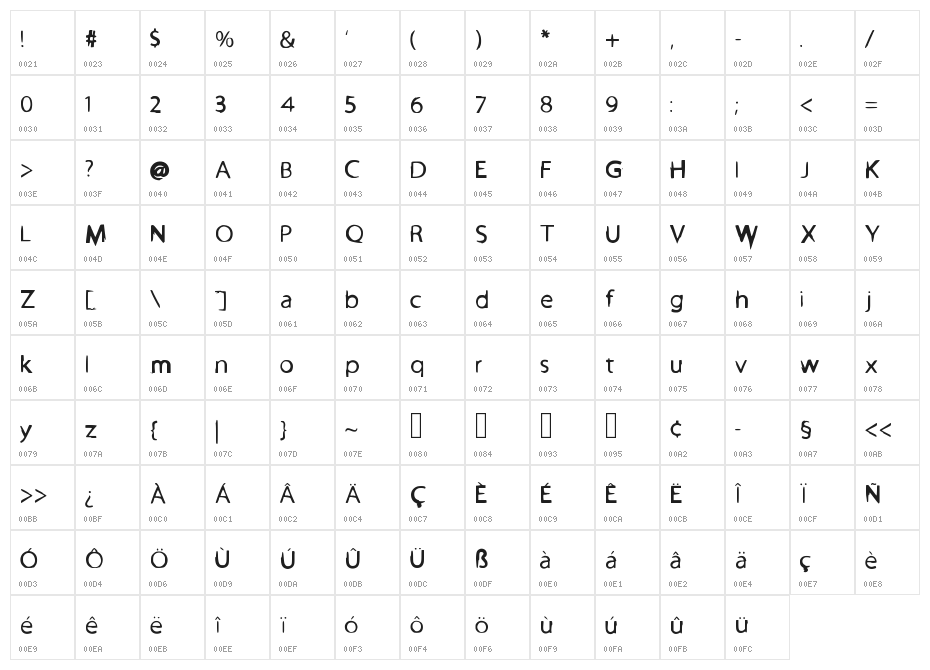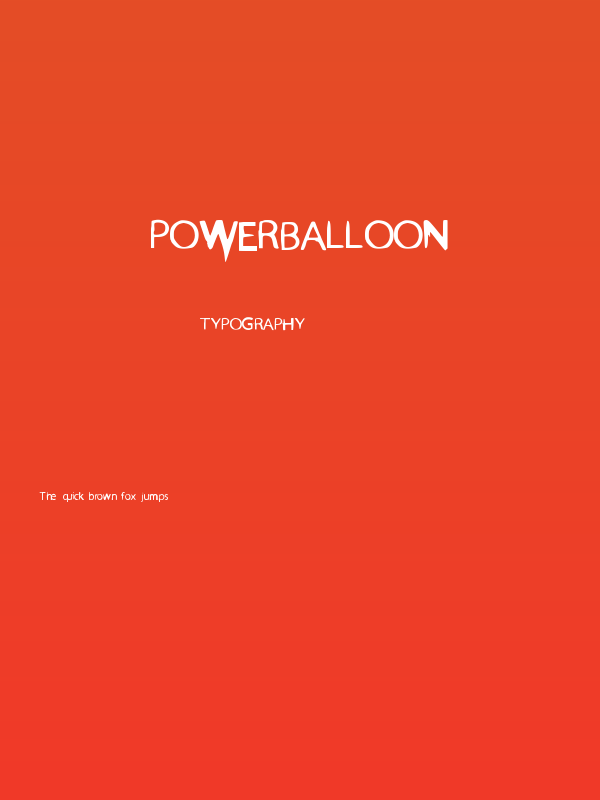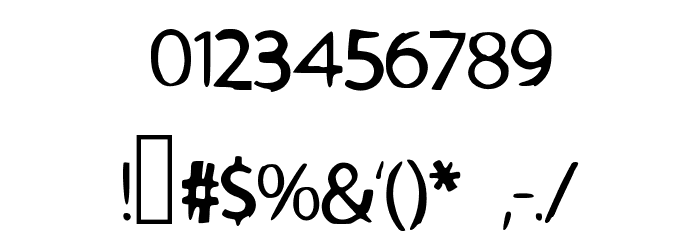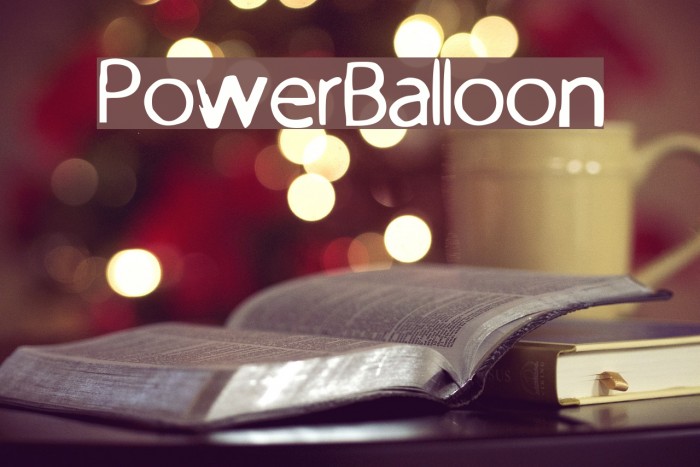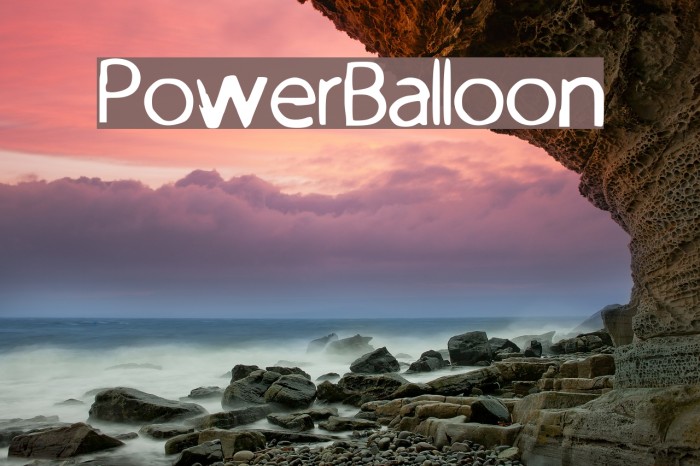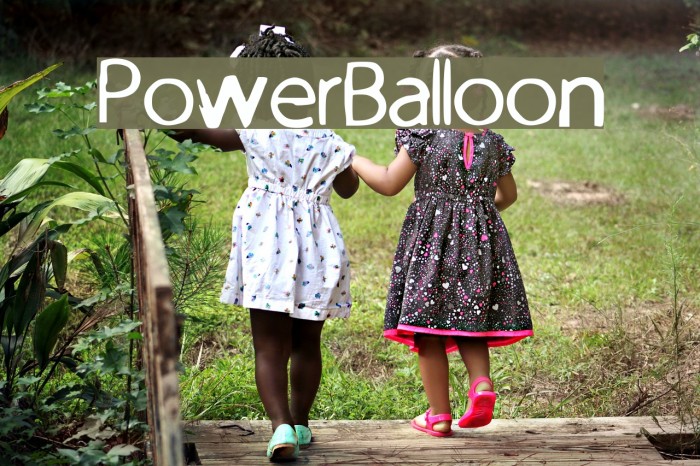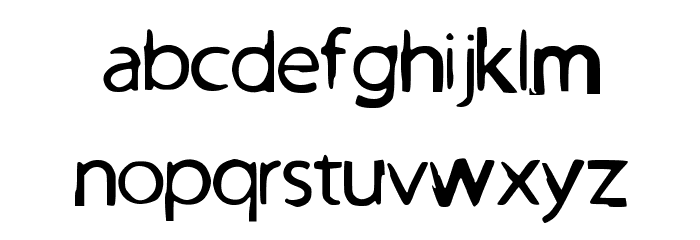
PowerBalloon Font
PowerBalloon Description
This font features a playful and whimsical design, characterized by its uneven and slightly irregular letterforms that give it a hand-drawn appearance. The uppercase letters are bold and dynamic, with varying stroke widths that add a sense of movement and energy. The lowercase letters maintain this playful style, with rounded edges and a slightly condensed form. The numbers are consistent with the overall style, offering a unique and engaging look. Special characters are included, maintaining the same lively and informal aesthetic. This font is ideal for projects that require a fun and approachable feel.